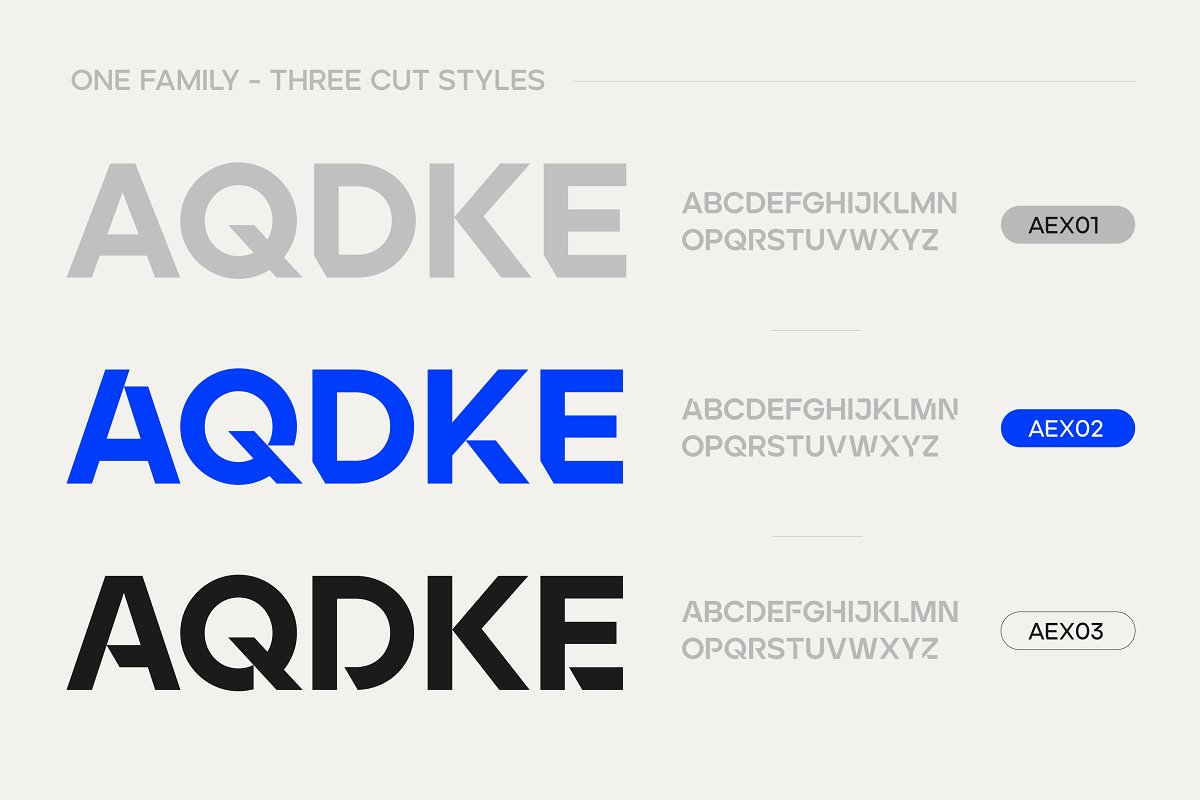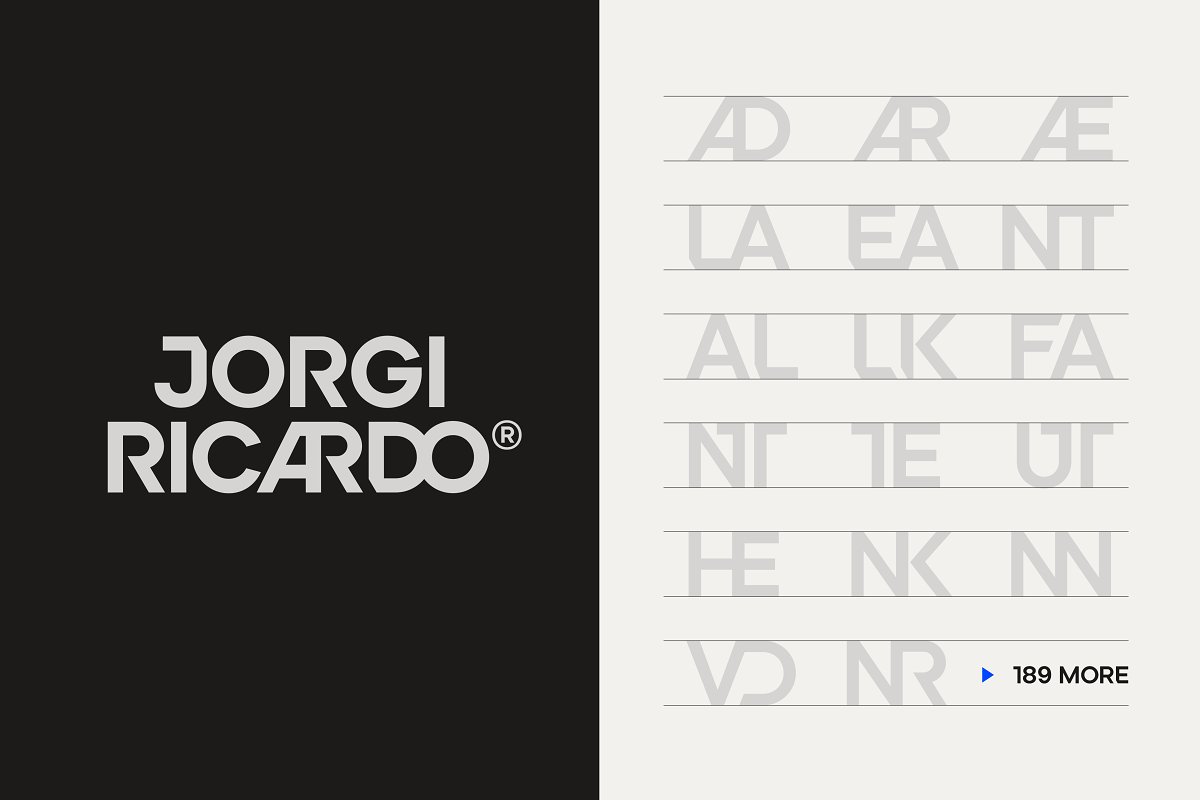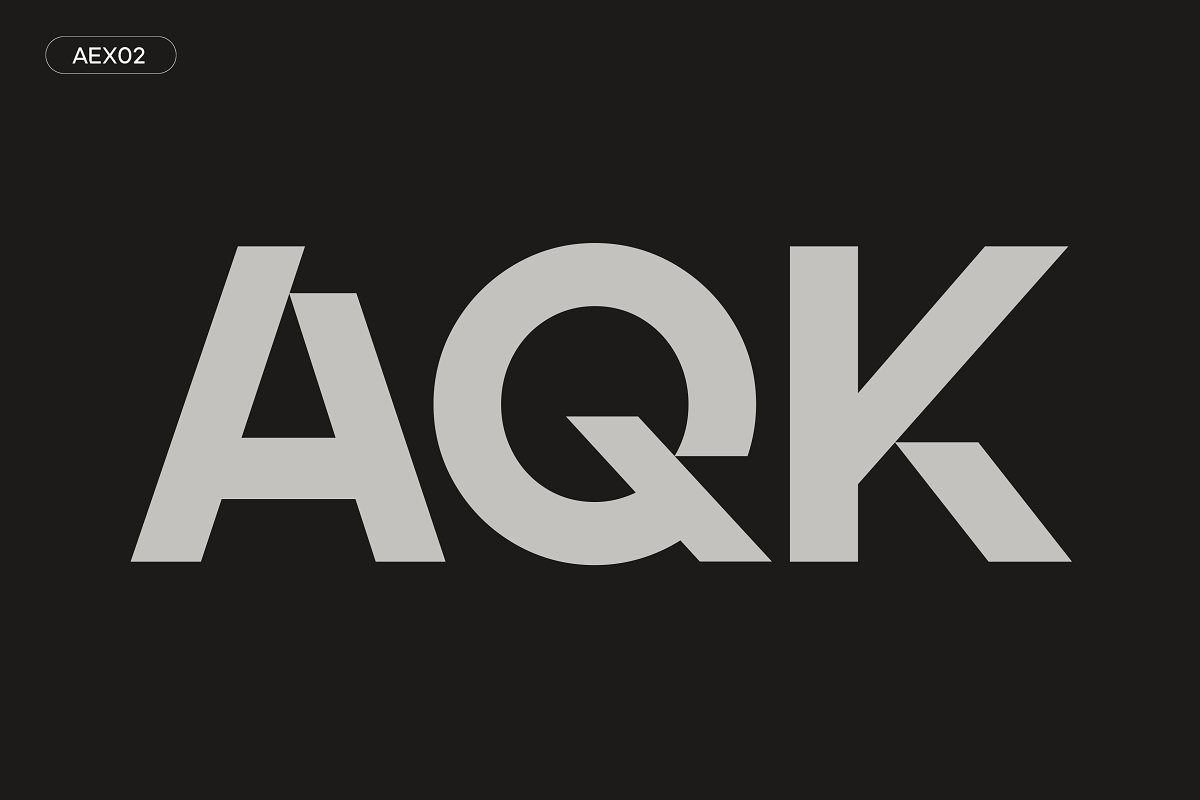
About the Ardela Edge Custom Cut TypeFamily Font
The altered cut glyphs feature as the capitals of the font; to sample the cuts and ligatures type in ALL CAPS in the Typetester, This new custom type bundle contains 66 fonts in three different font styles – X01, X02, X03Ardela Edge is OpenType in complete overdrive, helping to create modern type that looks like bespoke typography, It’s a stylised geometric sans serif family with extreme cuts, sharp angles and interactive ligatures
Affected characters are spread across the three upper-case only subfamilies, with distinct styles, and different personalities, The bold character breaks and considered ligatures create edgy, modern, exciting type, These three styles create thousands of combinations with options from super minimal to the more experimental
This is a hands on designer package, that takes advantage of OpenType and helps people to achieve a totally custom look, It’s perfect for logos, branding projects, headlines, posters and anything you want to add edge too or some custom flair, Available in 9 weights and as a variable font, with matching italic and outline faces, – 66 fonts in total, each one containing over 550 glyphs
– Full European latin based language support, Ardela Edge’s three family concept means all three character styles are accessible to everyone, on any software, The cut glyphs feature as the CAPITALS of the font, whilst the unaffected letters appear as the lowercase
Many subtle ligatures are accessed by simply typing in all caps, however, to access all ligatures requires software with OpenType capabilities, Included is a step by step on how to access the full font and explore its capabilities, Please get in touch if you have any questions about the font or about specific licence requests